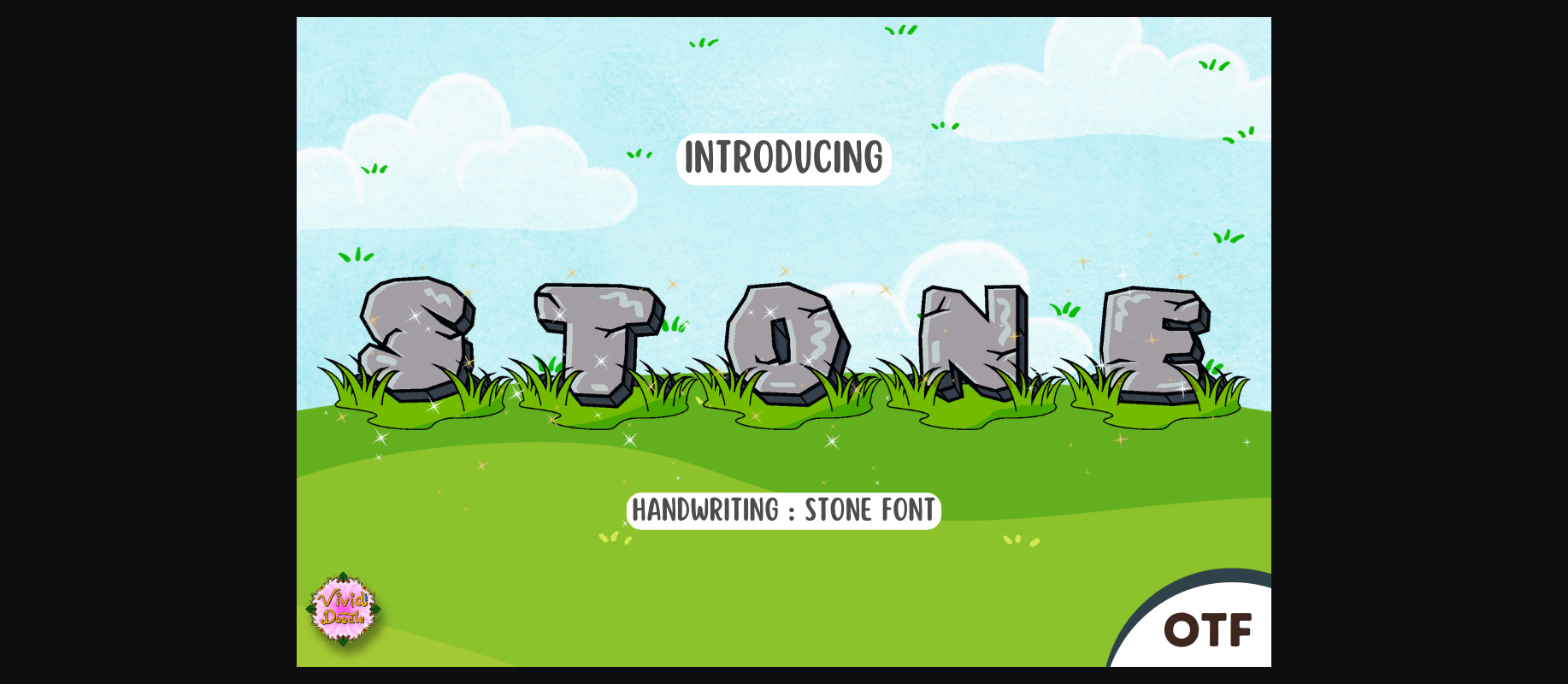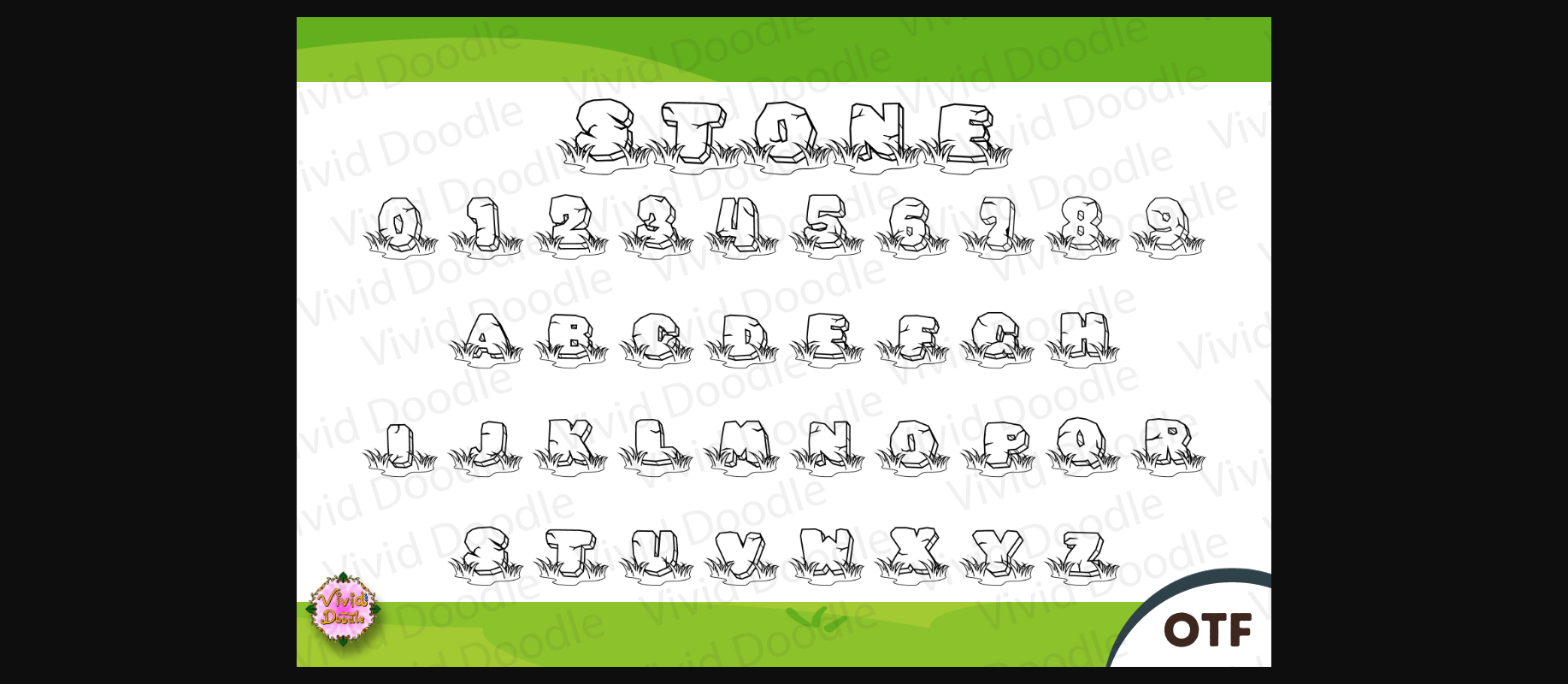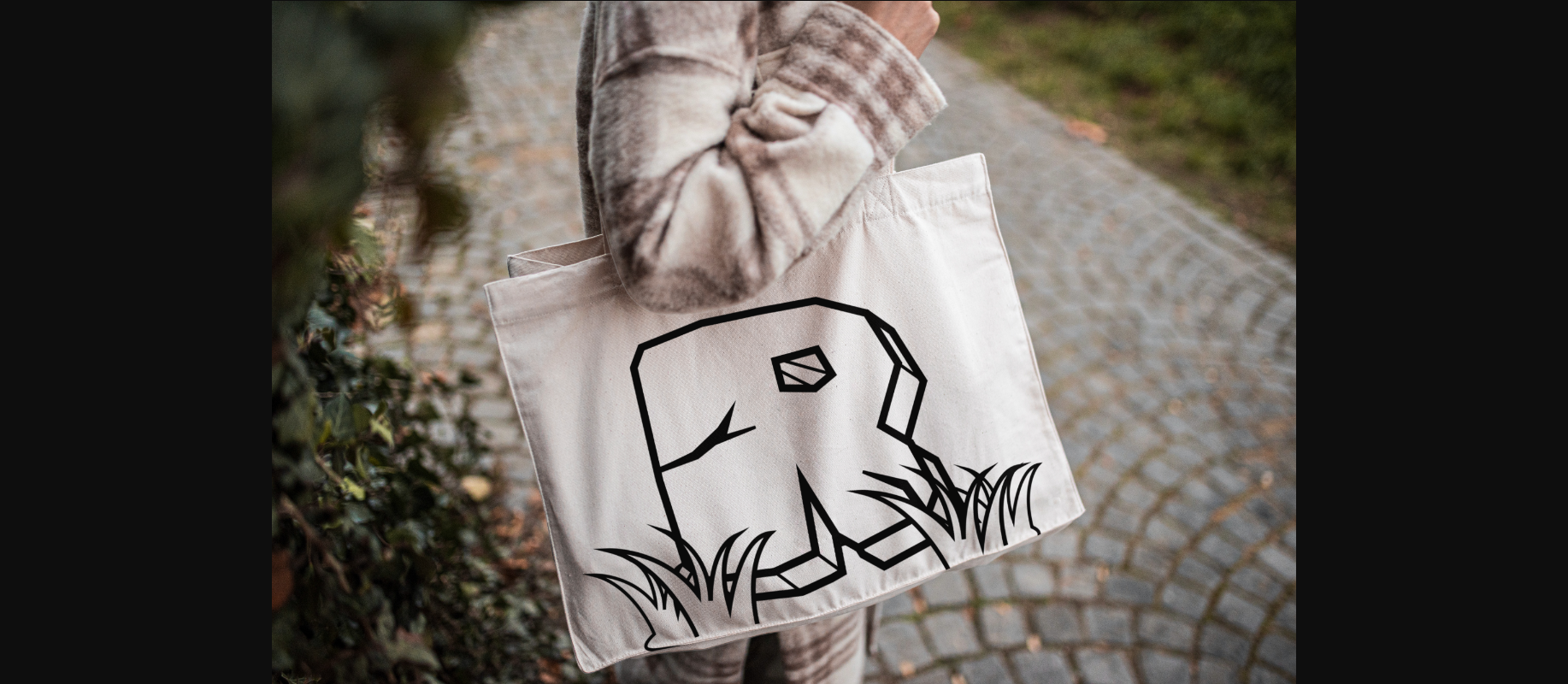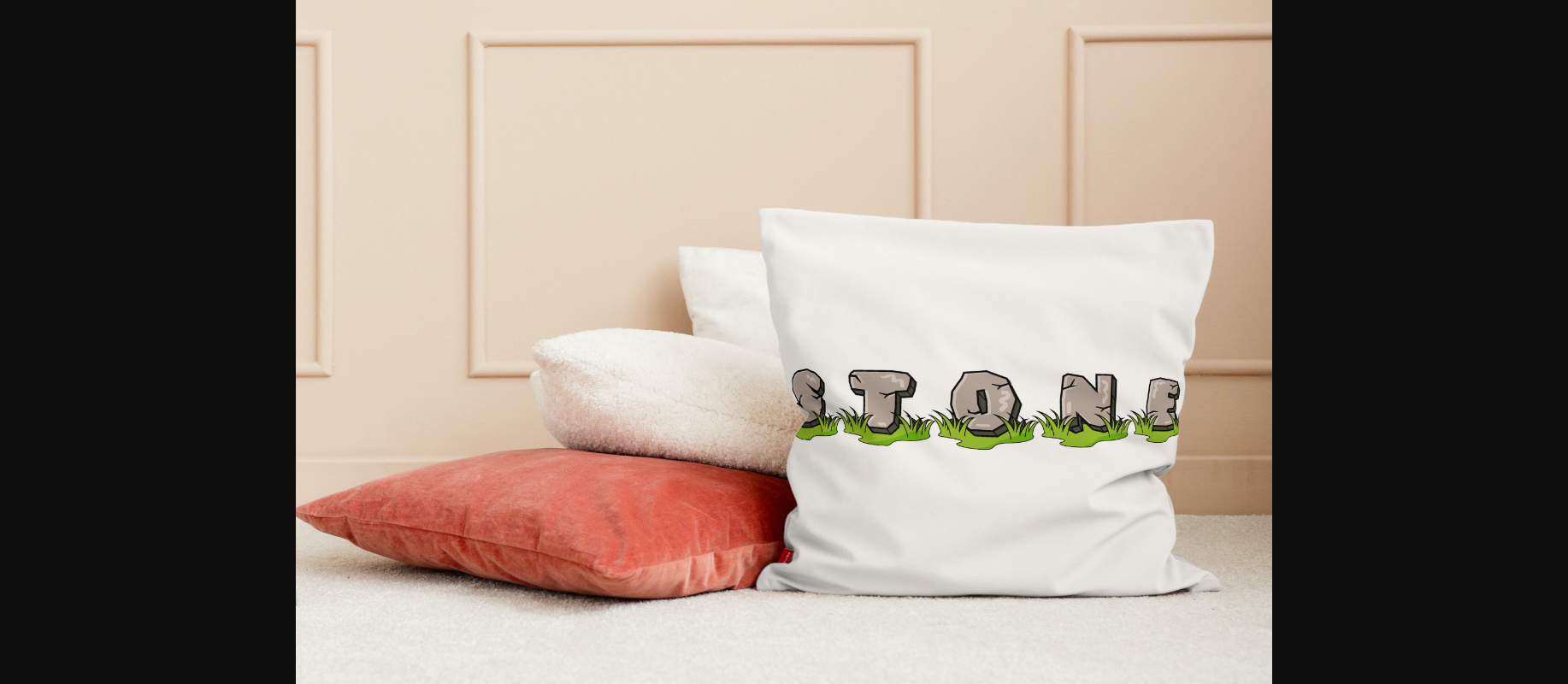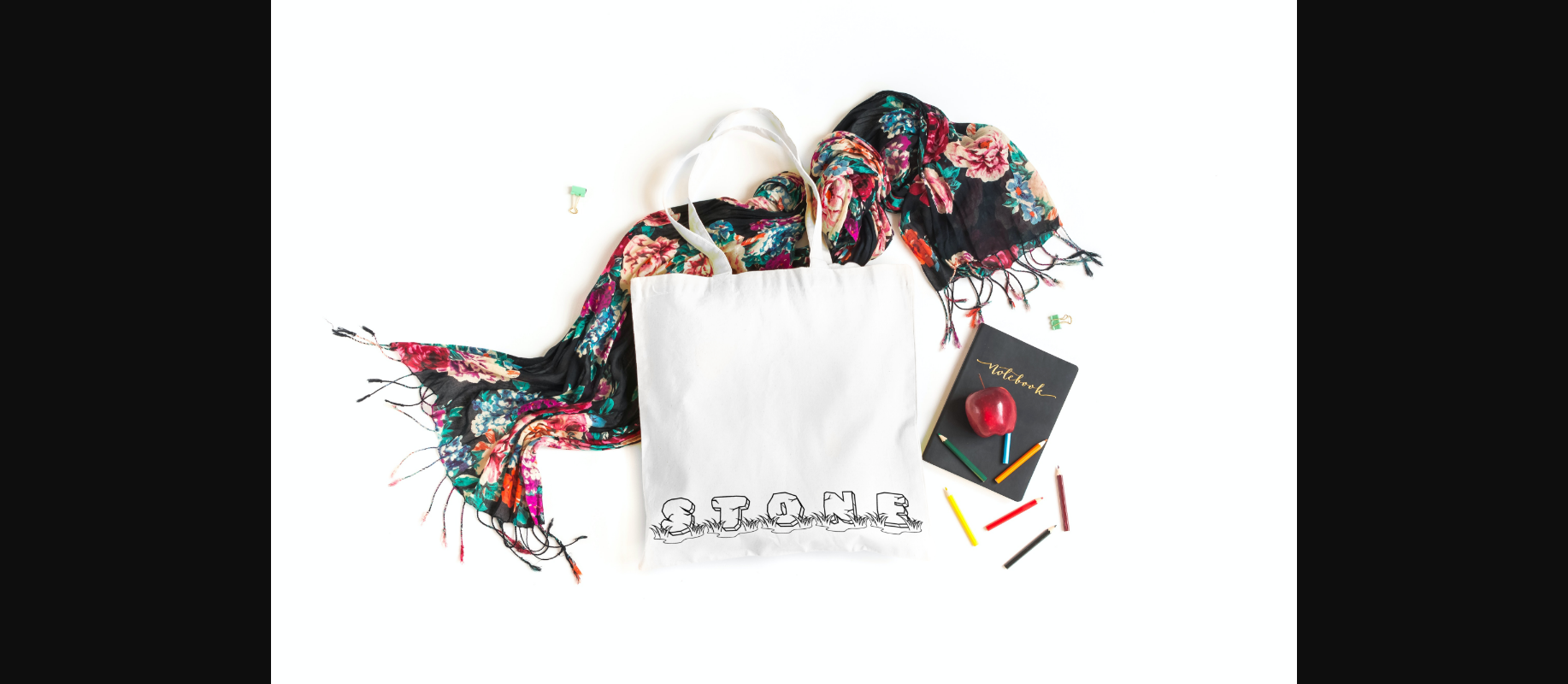
Stone Font
About Stone Font
Stone is a bold display font that looks like a stack of sturdy rocks. Its letters are solid and robust, giving your words a strong and impactful presence. Perfect for headings and titles, Stone adds a touch of rugged charm to your designs. Whether you’re crafting a poster or a logo, this font brings a sense of stability and boldness, making your message stand tall and firm.